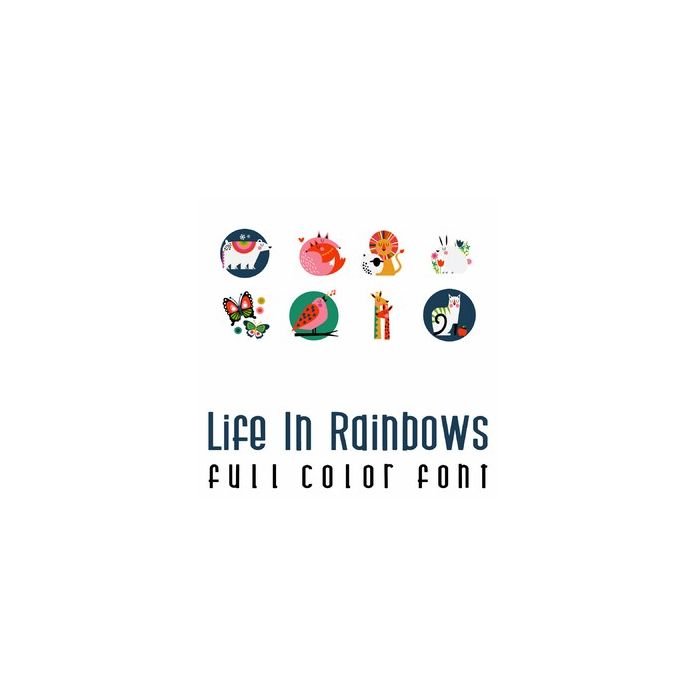
This adorable full color doodlebat font features beautiful colorful and party elements. Perfect for cards, crafts, gifts, decor, scrap book pages, planner stickers and more!